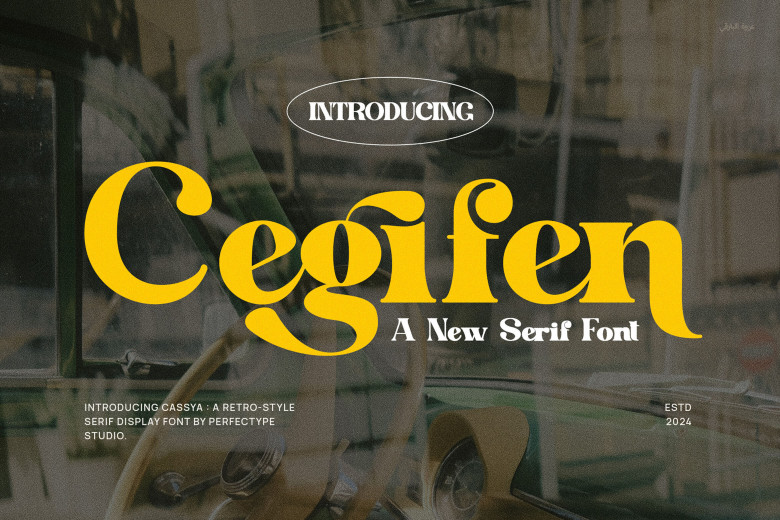
Cegifen Font
Cegifen Font is an elegant serif typeface with modern and classy aesthetic. Perfect for branding projects, logo designs and social media posts such as logos for weddings or social media ads packaging products, photography, invitations, watermarks, stationery projects or any project with high level of comprehension in mind – PUA encoded, you have access to all these incredible characters and ligatures easily!
Cegifen Serif Font